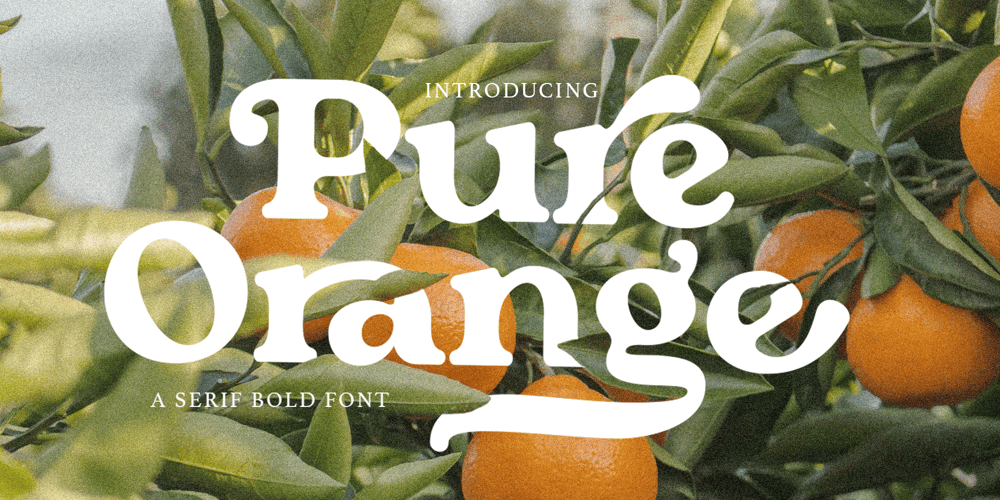
Pure Orange Font Family was designed by Sarid Ezra, Dzikrul Aulia and published by Bale Type. Pure Orange contains 1 styles and family package options. Pure Orange is a stylish and bold serif with a bunch of ligatures and alternates that will make your presentation or logo even more retro and vintage! This stylish font is suitable for any purpose, such as poster, logotype, quotes or even your wedding invitations. With swash and stylish alternates will make your project more unique and stunning. Pure Orange also support Multi Language.